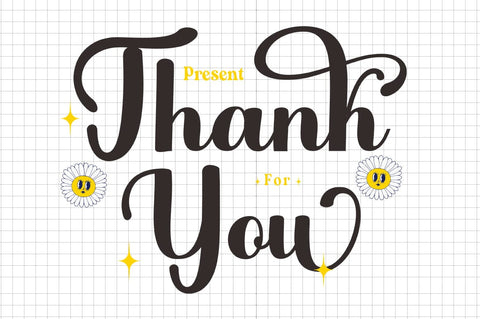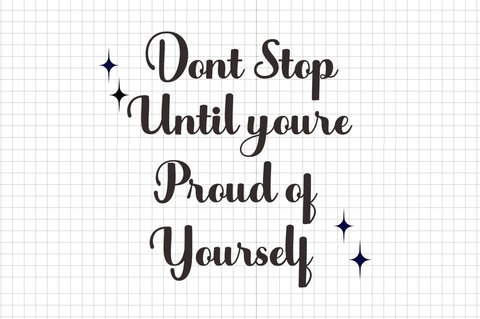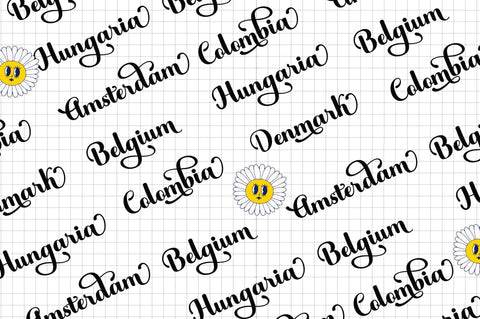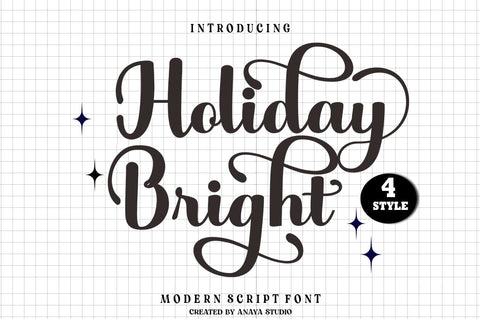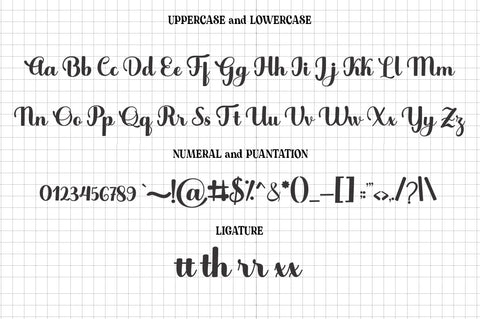
Holiday Bright
Holiday Bright Script is a calligraphy font that comes with a very beautiful character change, a kind of classic decorative copper script with a modern touch, designed in great detail for an elegant style.
Holiday Bright Script is attractive because it is smooth, clean, feminine, sensual, glamorous, simple and very easy to read, due to the many luxurious letter connections. I also offer a number of decent style alternatives for many letters. The classic style is perfect for applications in various formal forms such as invitations, labels, restaurant menus, logos, fashion, makeup, stationery, novels, magazines, books, greeting/wedding cards, packaging, labels or all types of advertising needs. . . . .